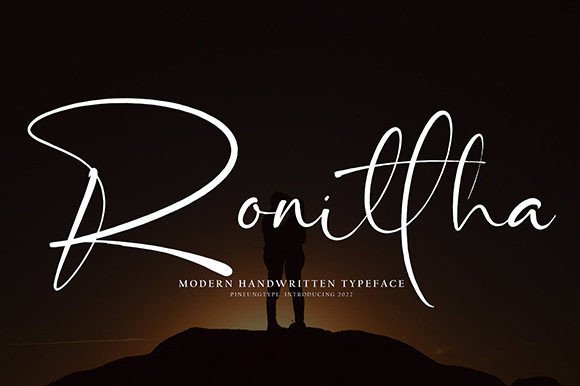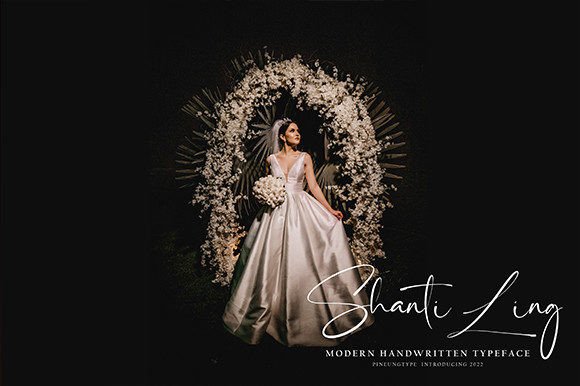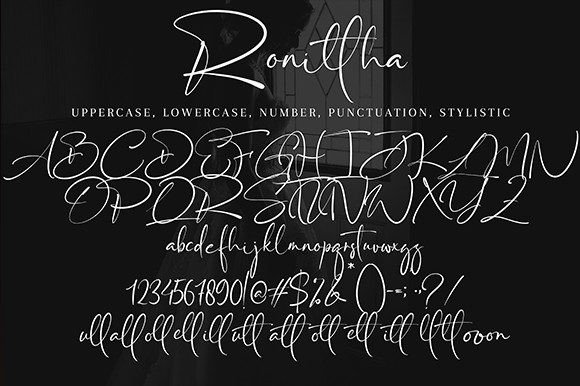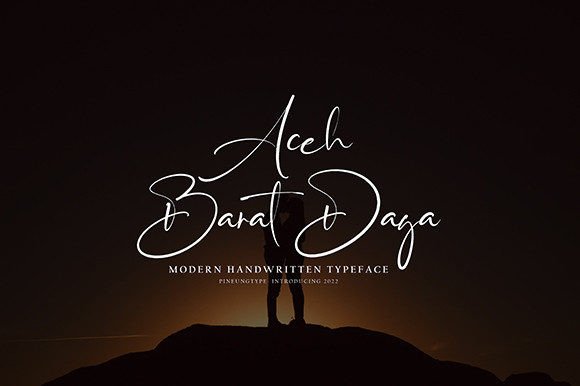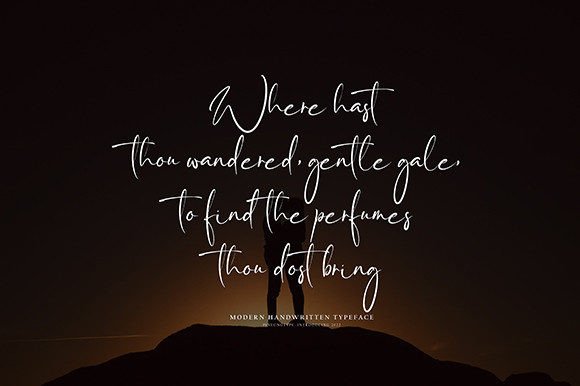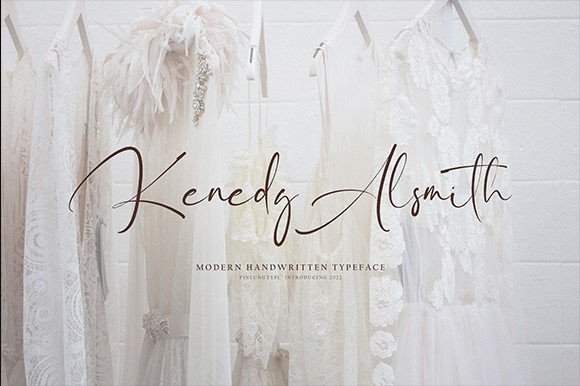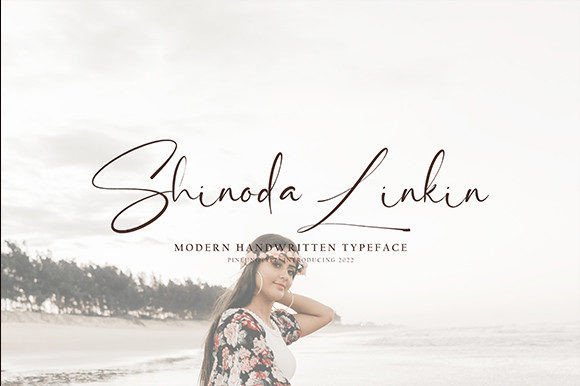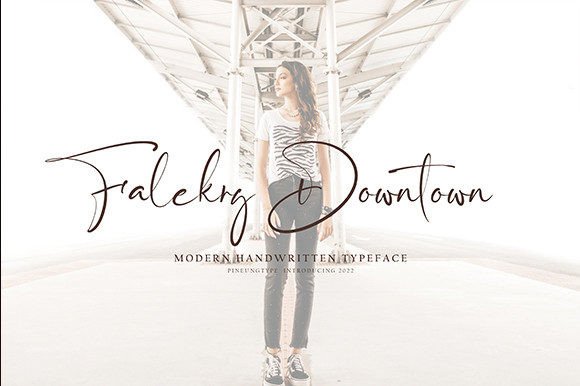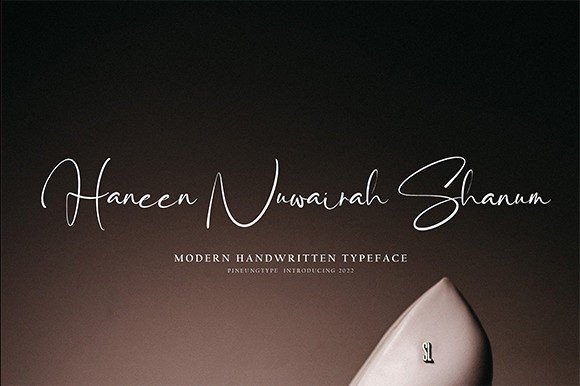
Ronittha Font
Ronittha Font: Elegant Handwriting for Luxurious Designs
“Ronittha” is a beautiful and light handwritten font that radiates a unique and impactful aura. It’s perfect for elevating your design projects with a touch of luxury and elegance.
Key Features of Ronittha Font
• Unique Style: Ronittha brings a distinctive and memorable look to designs.
• Light Appearance: Creates an elegant and sophisticated atmosphere in typography.
• Versatile Use: Suitable for many projects, from branding to invitations.
Luxury Branding and Packaging
Ronittha’s elegant style is ideal for creating sophisticated logo designs and high-end packaging that convey opulence.
Wedding Stationery
Use Ronittha to design beautiful wedding invitations and special event materials that leave a lasting impression.
Editorial and Digital Design
The font’s stunning look makes it perfect for creating eye-catching magazine layouts and website headers.
Why Choose Ronittha Font?
Ronittha offers more than just beautiful letters. Here’s why it stands out:
• Infuses designs with a sense of luxury and sophistication
• Creates a harmonious and captivating atmosphere in typography
• Adapts well to various design themes and creative endeavors
By using Ronittha, you open up new design possibilities. Its elegant style works well in many contexts, from greeting cards to poster designs. The font’s ability to convey luxury can inspire creative ideas and help you approach projects from a fresh, sophisticated perspective.
If you’re looking for a font that combines beauty with impact, Ronittha is an excellent choice. It’s perfect for adding a touch of luxury to your work, especially for projects that need a distinctive, elegant feel.
Explore how Ronittha can transform your designs. From branding materials to special event stationery, this font brings a refined and captivating quality to your creations.